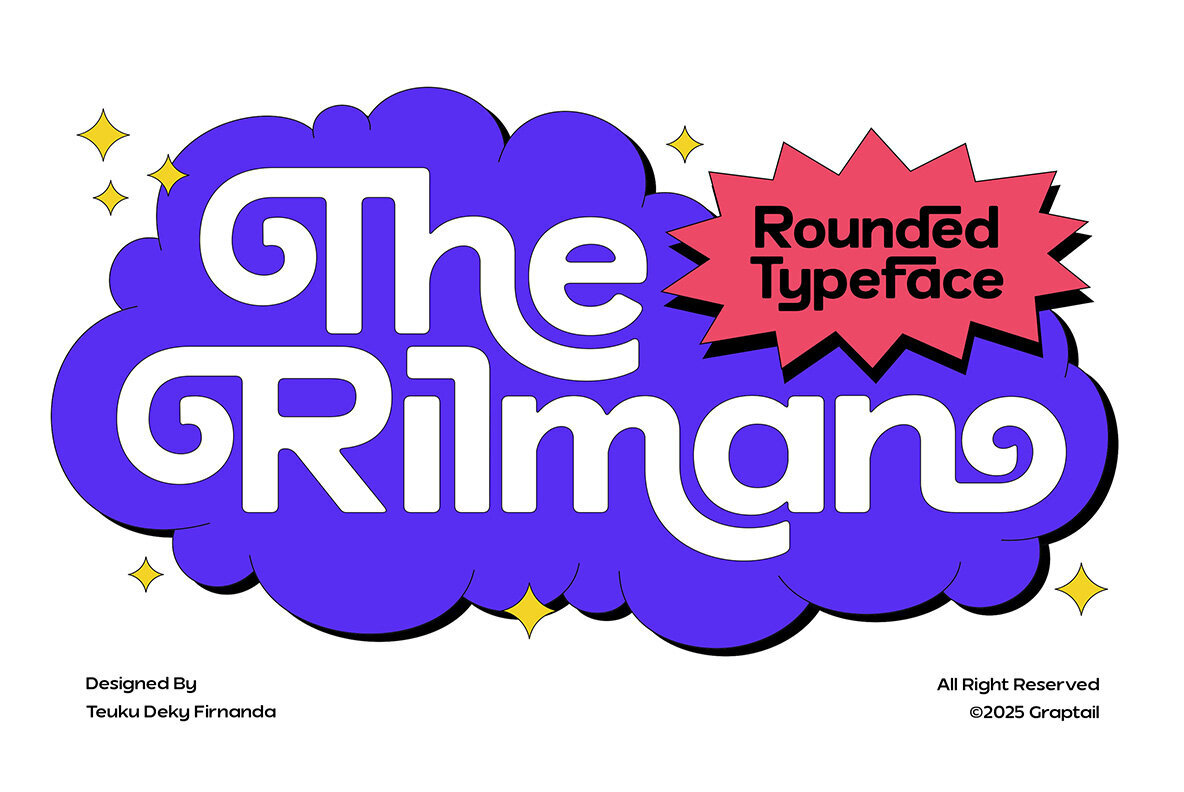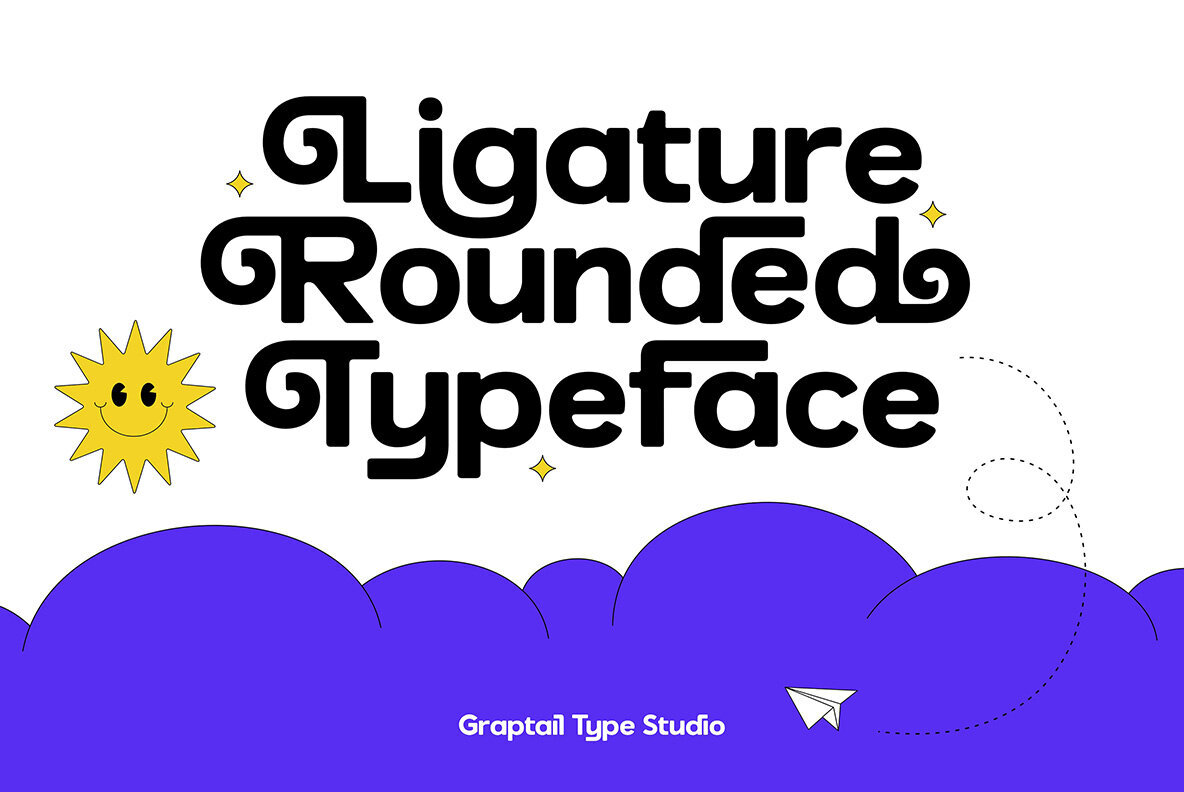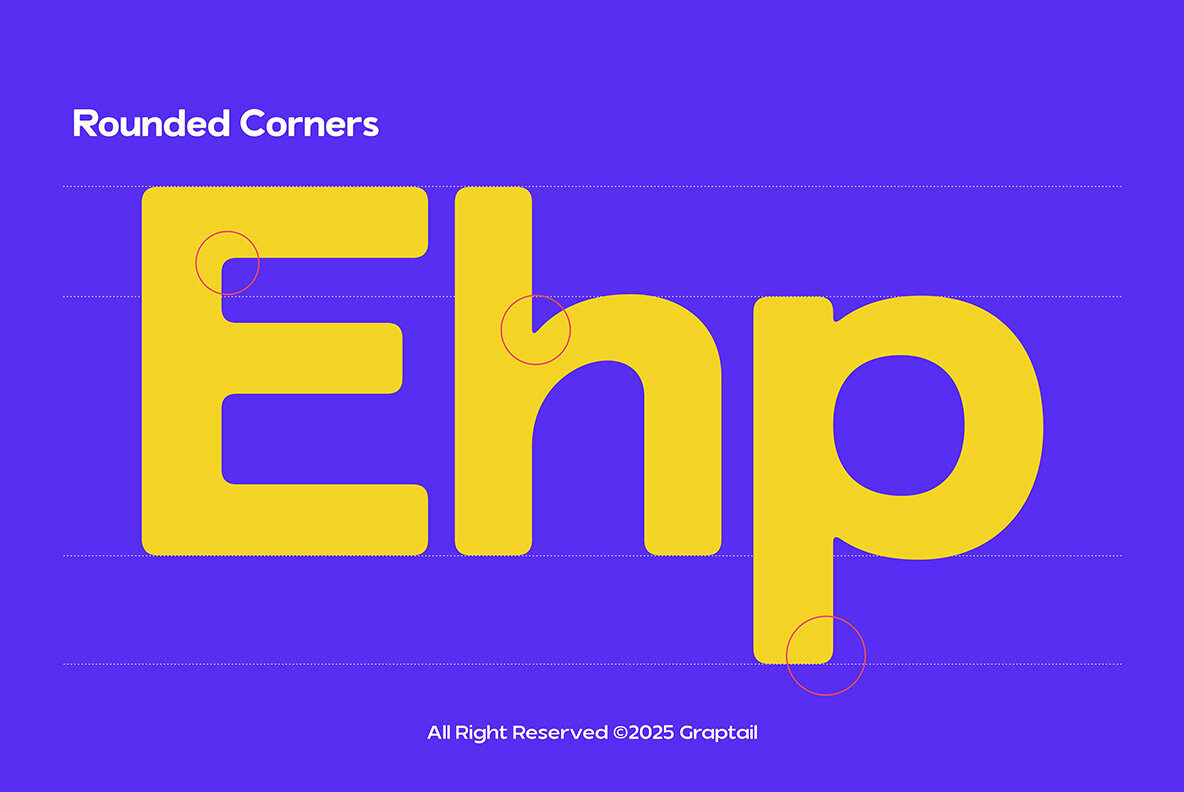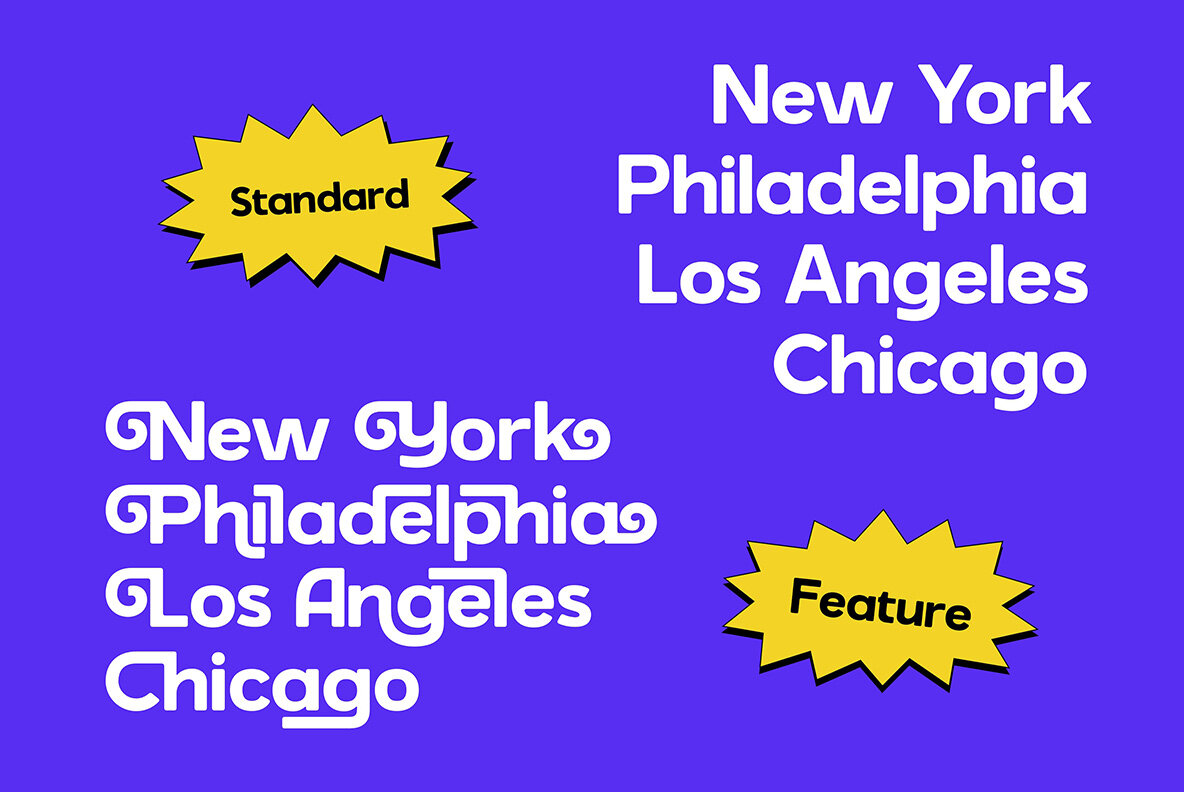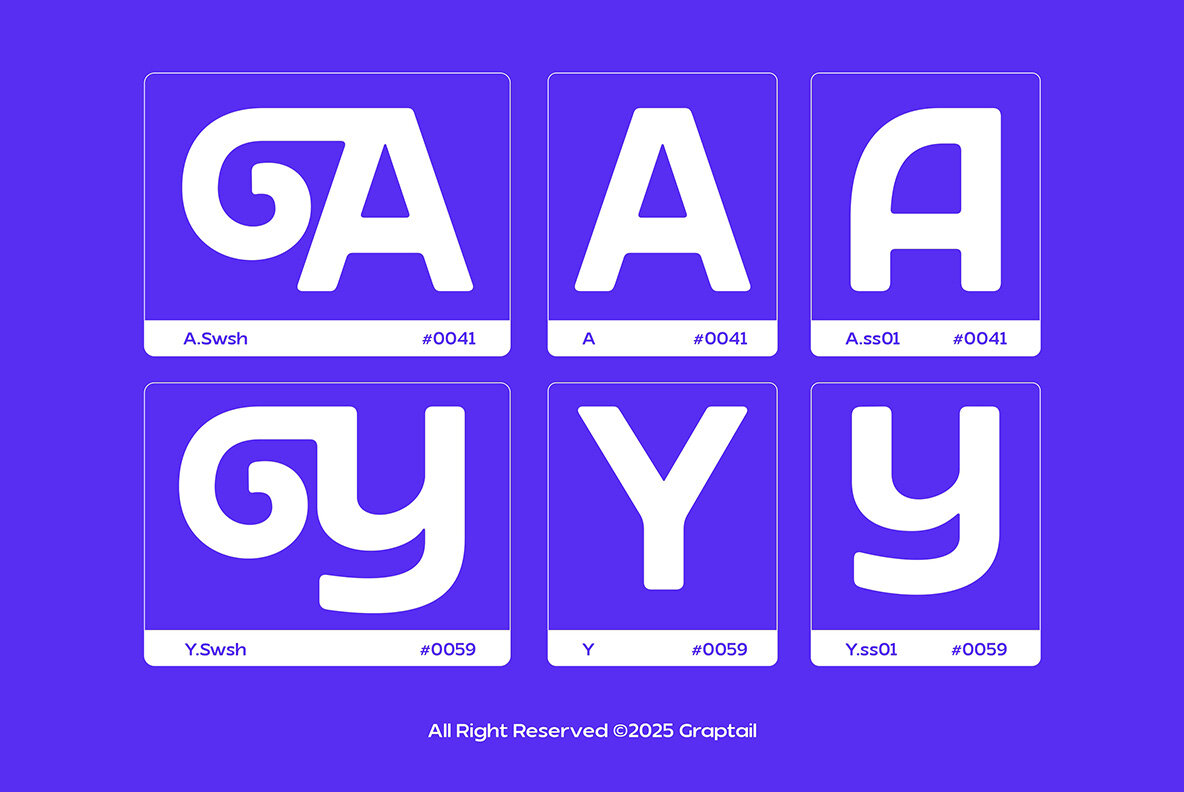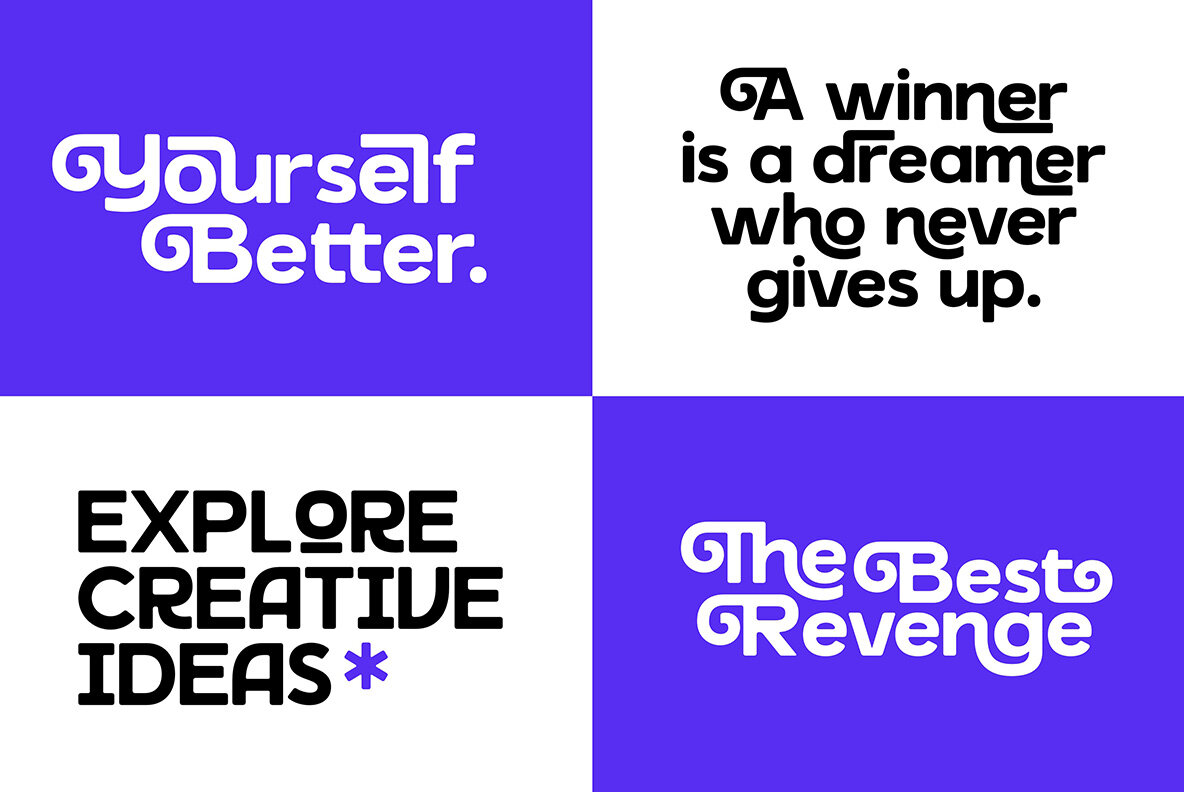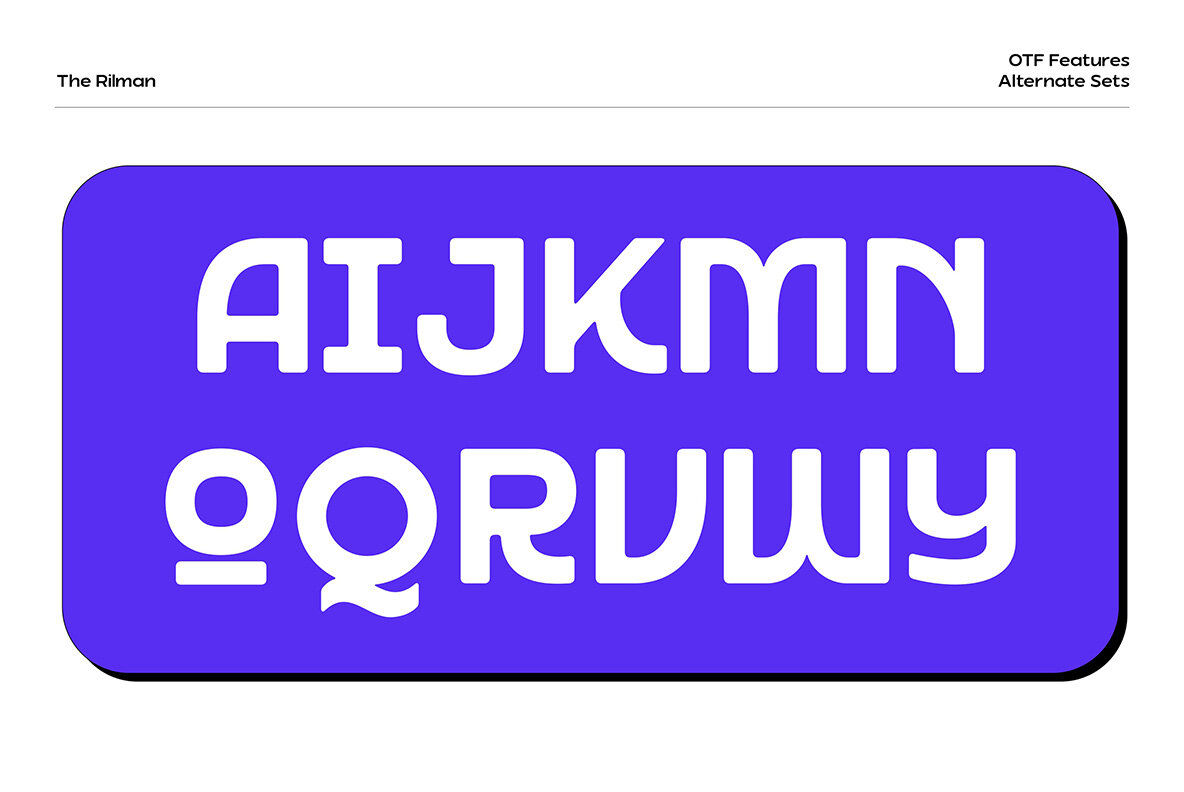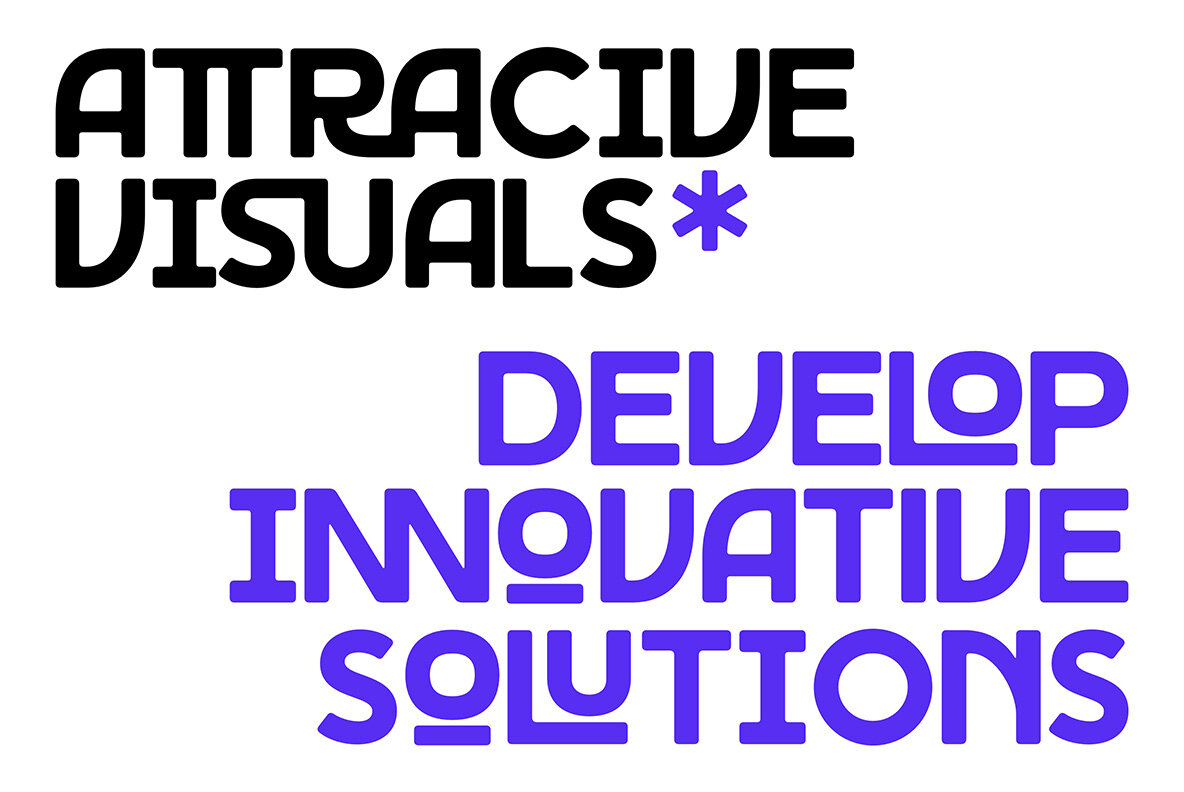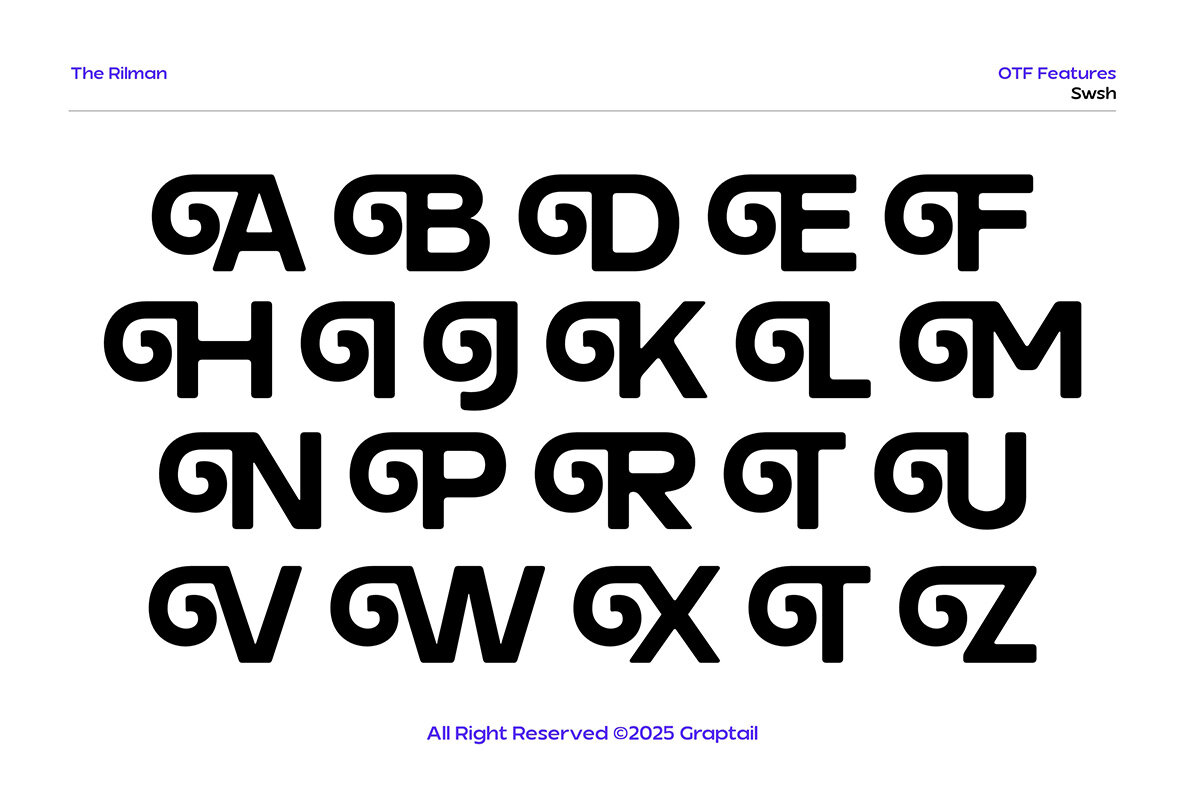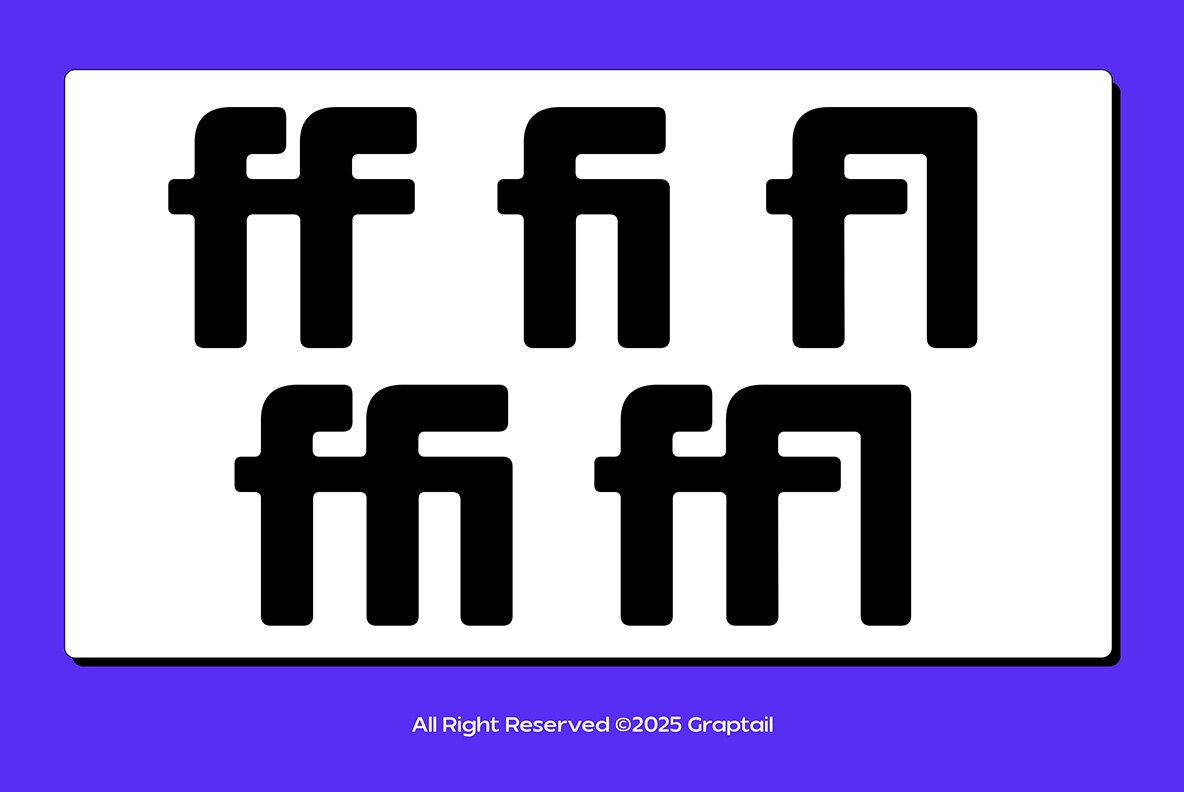
The Rilman Font
The Rilman Regular
Simplicity meets dynamism in The Rilman, a modern sans serif font infused with a unique touch of creativity. Crafted with smooth, rounded corners, it exudes a soft and modern aesthetic while enhancing text readability. Perfect for projects requiring a nostalgic vibe, The Rilman excels in creating retro or groovy posters, advertisements, and packaging. It adds a fresh, eye-catching quality to titles and headings. Immerse your designs in personality and nostalgia with this versatile font choice.The Rilman: Modern Sans Serif With a Dynamic Flair